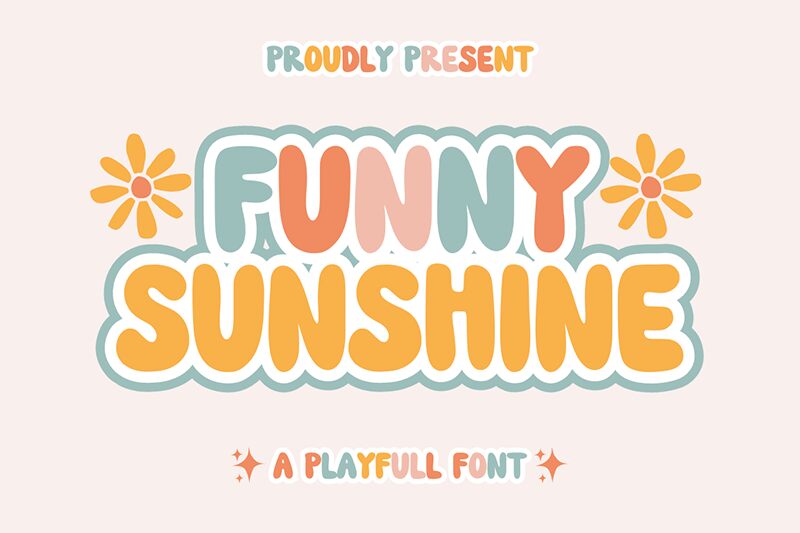
FUNNY SUNSHINE
Funny sunshine font by Tri Sakti Oktaviano is a bold, playful cartoon font with strong presence and retro vibe. Its rounded shapes and casual tone give this free display font a vintage appeal that's especially emphasized in headlines.
Use Funny sunshine for book covers, advertising, social media promos, packaging designs, merchandise items or band posters. Have this typography play a role in logos, movie titles, publication layouts or brochure designs. Other possibilities include invitation card design especially those that have something to do with kids parties.